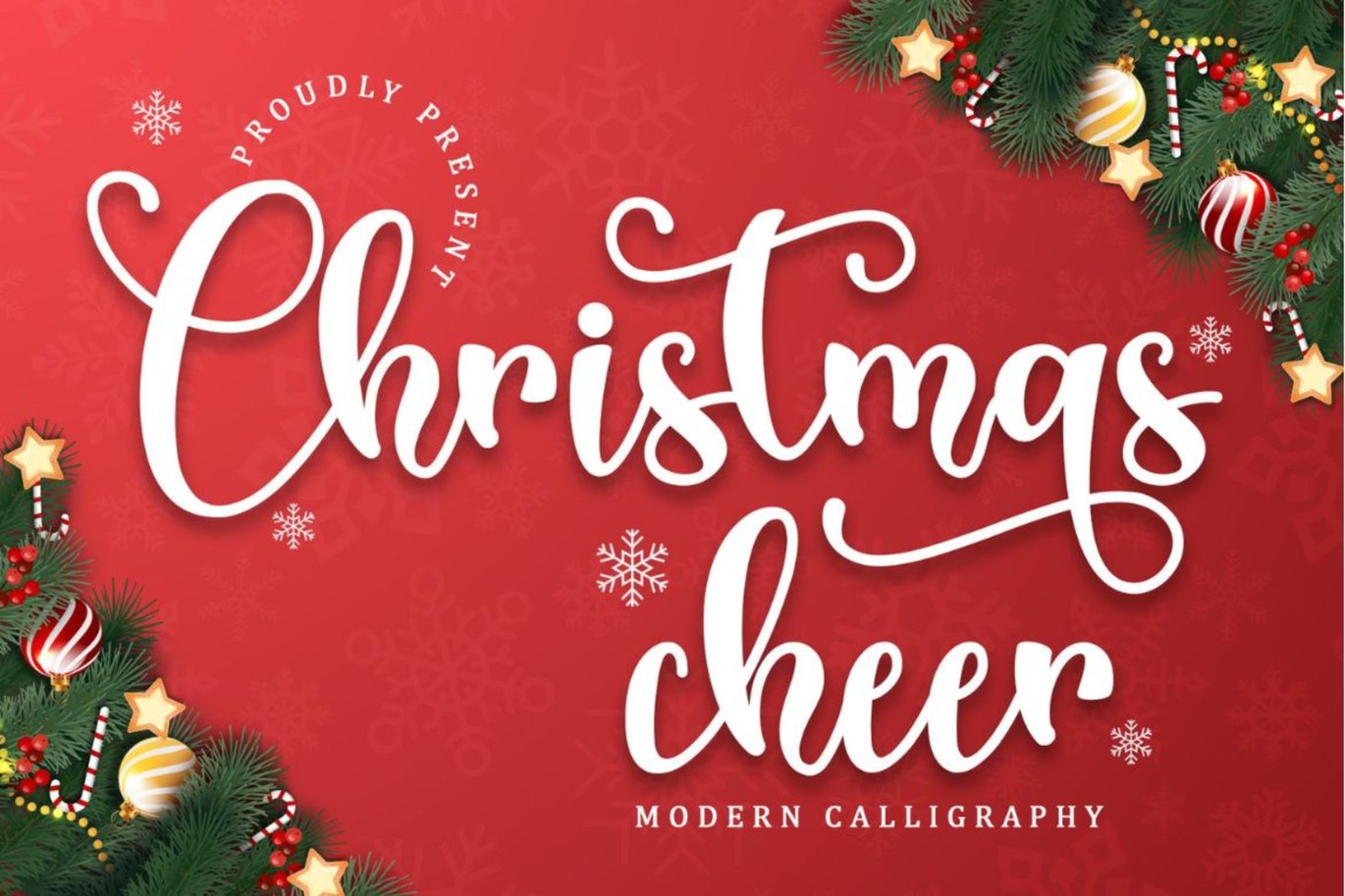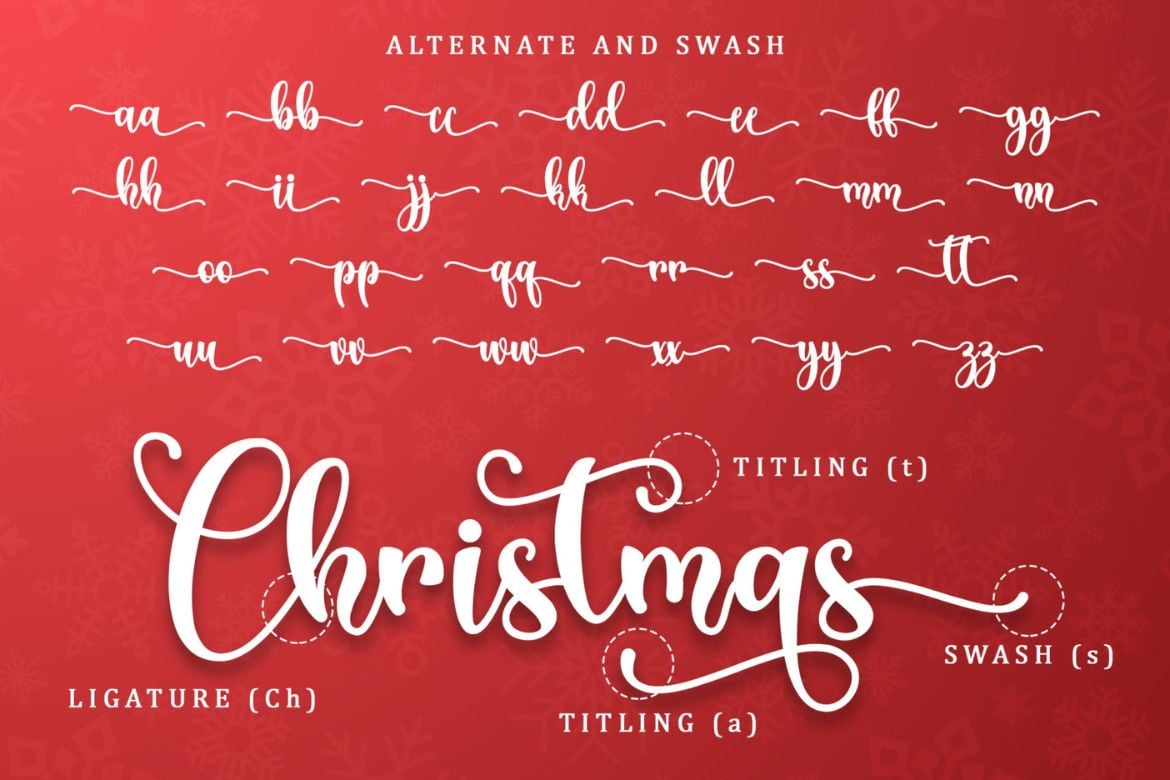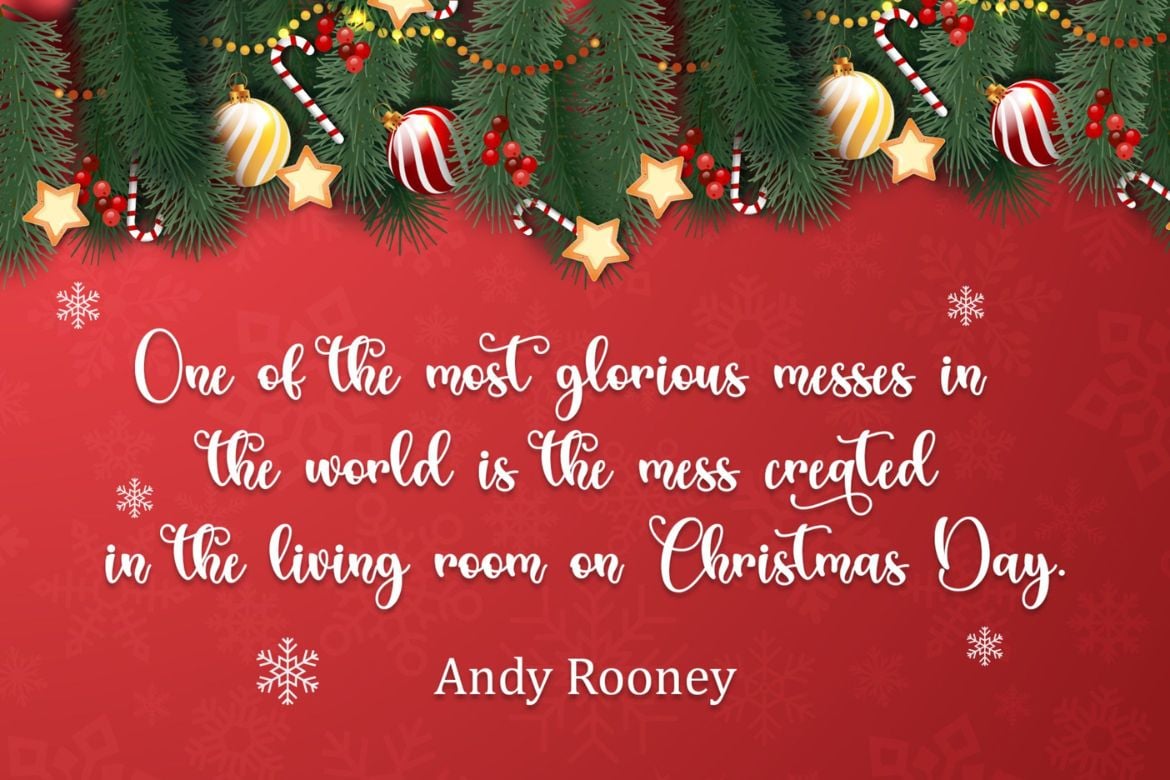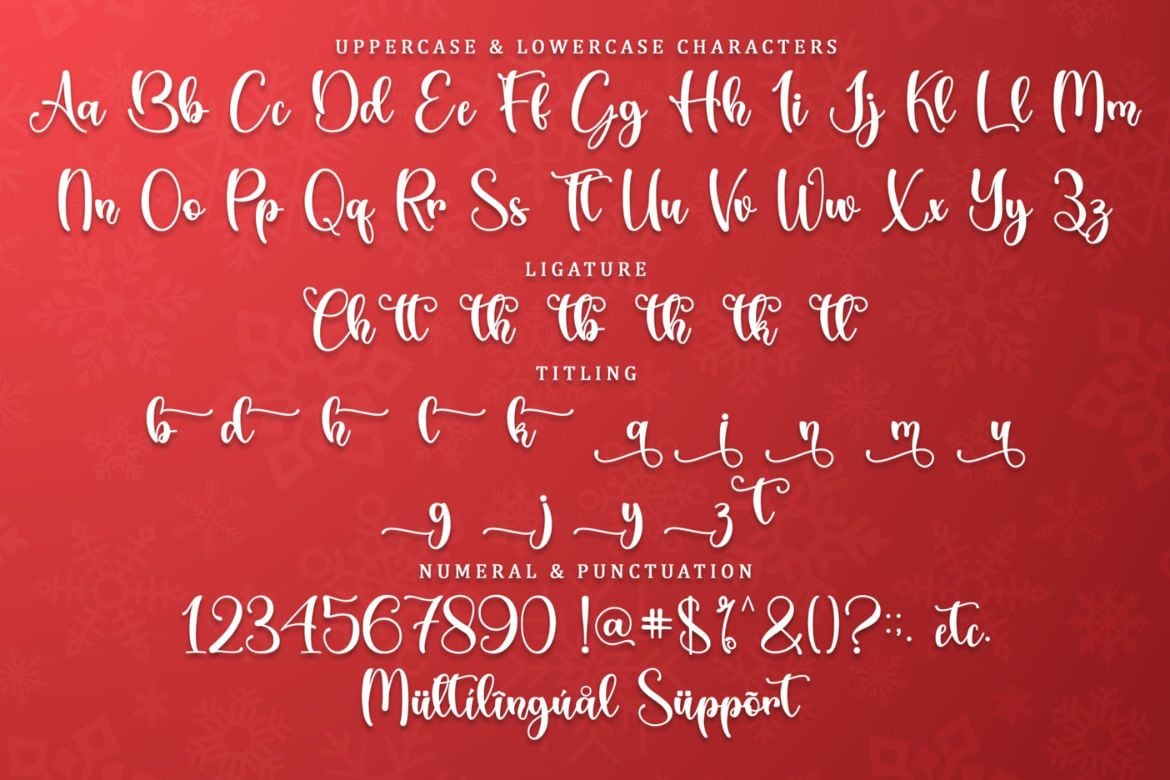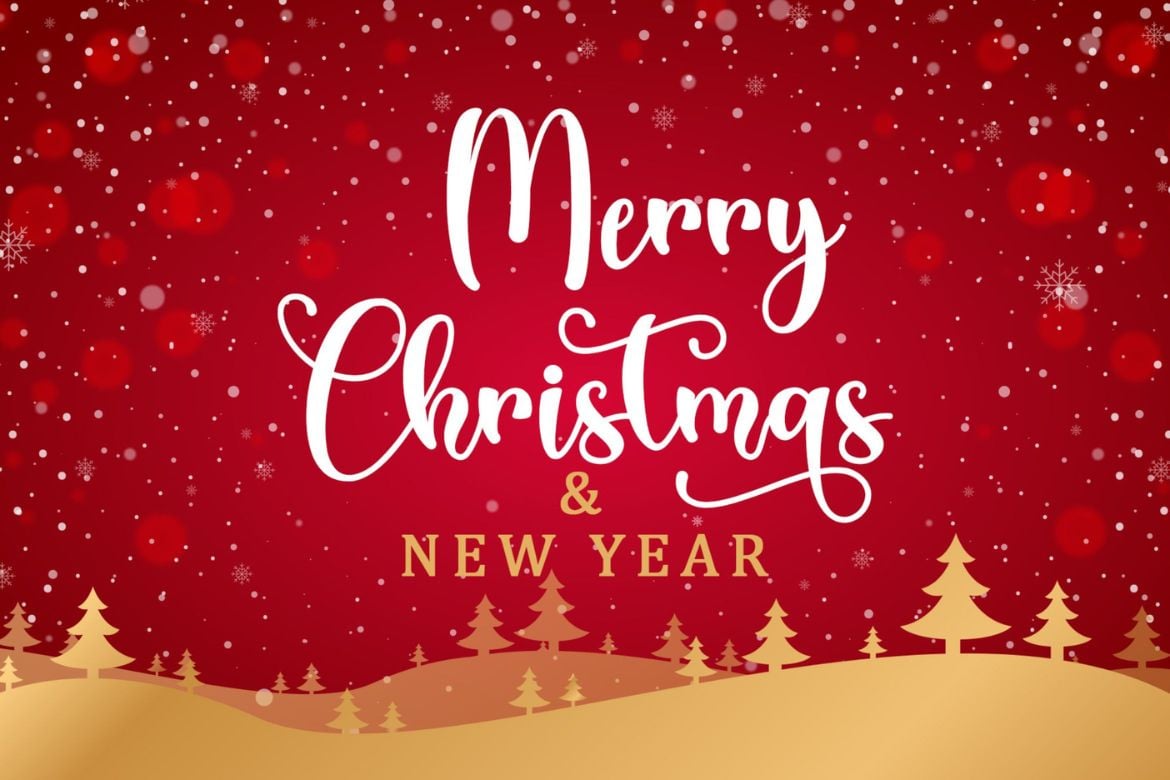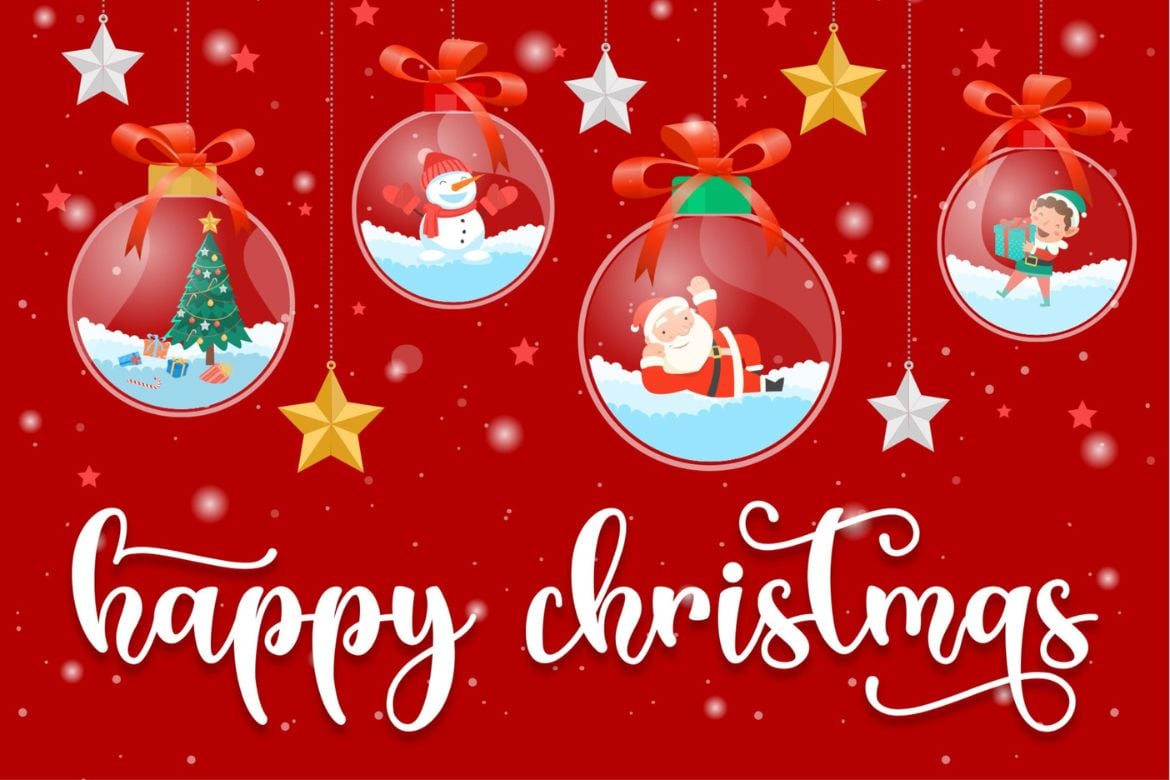
Christmas Cheer
Christmas Cheer is a lovely script font featuring charming, playful characters that seem to dance along the baseline. Add this font to your most creative ideas, and notice how it makes them stand out!
Features:
• Support multilingual; ä ö ü Ä Ö Ü ß ¿ ¡
• Numerals & Punctuation
• Ligature
• Swash
• lowercase and Uppercase